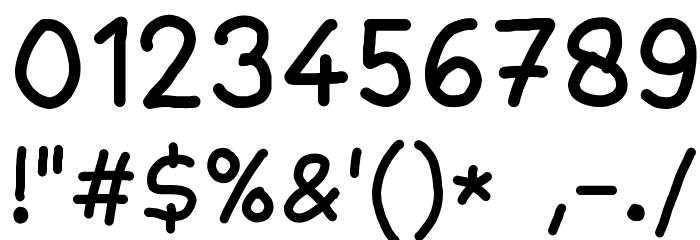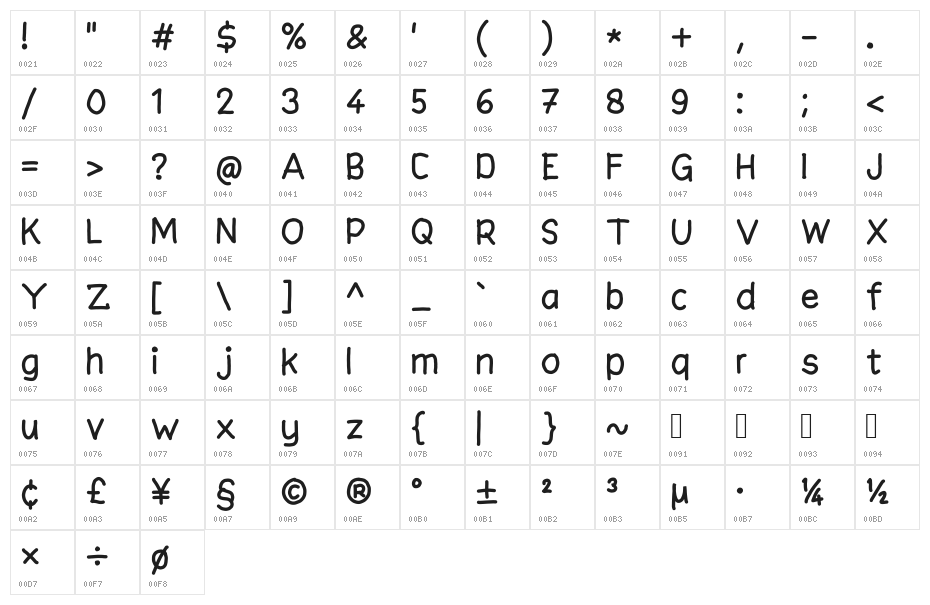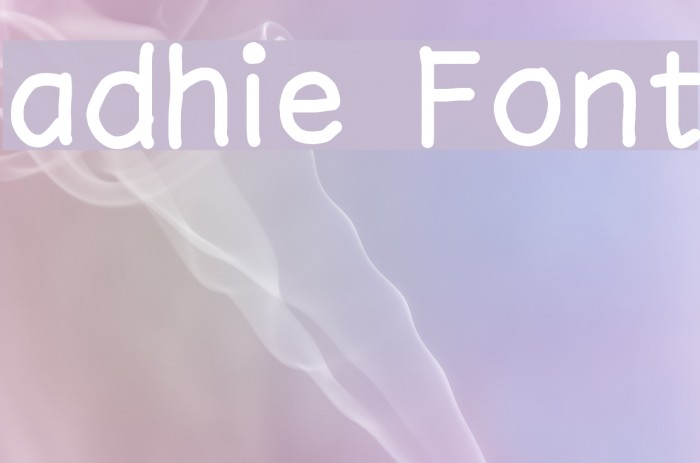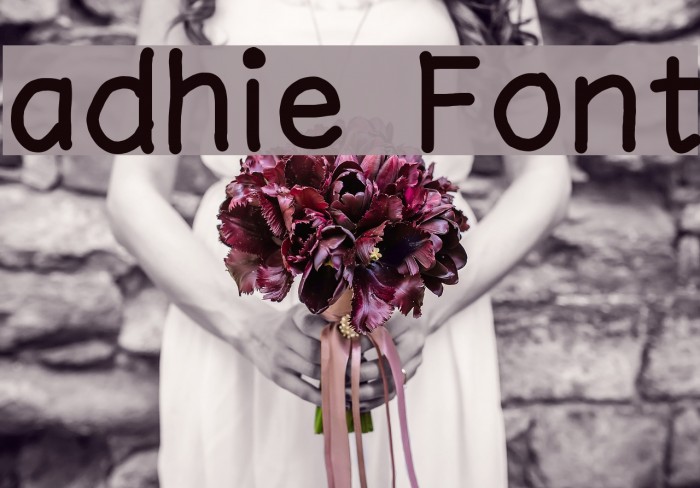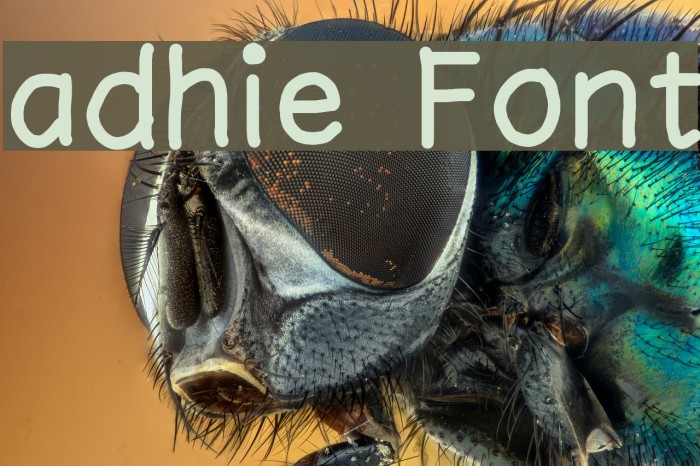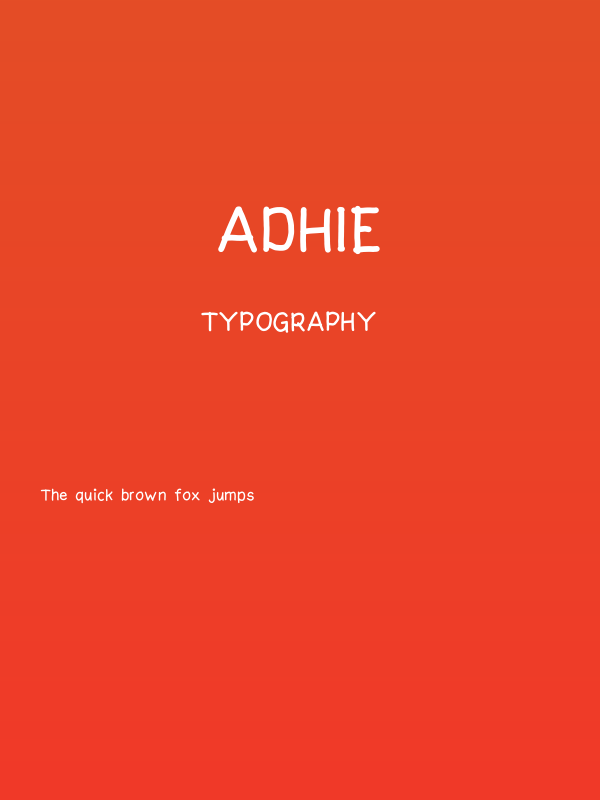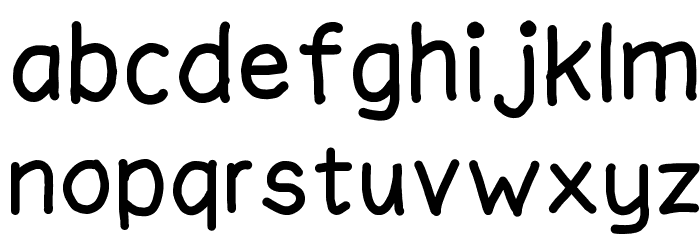
adhie Font
adhie Description
This font features a playful and informal style, characterized by its rounded and slightly irregular letterforms. The strokes are consistent in thickness, giving it a uniform appearance while maintaining a hand-drawn feel. The uppercase and lowercase letters are well-balanced, with a slight tilt that adds to its casual charm. The numerals and special characters are designed to match the overall aesthetic, making it versatile for various uses. Its friendly and approachable look makes it suitable for projects that require a personal touch.
| Proposed Projects | Ideal for children's books, greeting cards, playful branding, and casual invitations. |